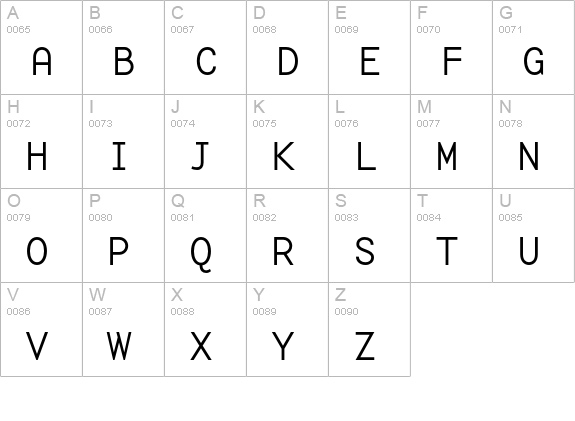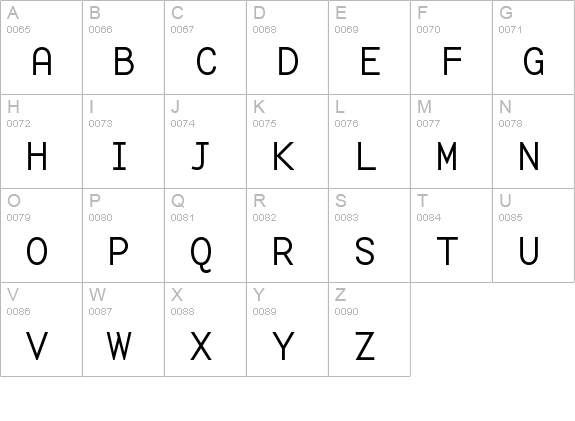
BaseMonoWideThin Font Details
BaseMonoWideThin font is a sleek and modern typeface that exudes a sense of elegance and sophistication. Its thin, wide characters create a unique and stylish appearance that is perfect for a wide range of design projects. This font is ideal for creating clean and minimalist designs, making it a versatile choice for both digital and print applications. What sets BaseMonoWideThin font apart is its clarity and readability, making it suitable for use in various sizes without compromising legibility. Whether you're designing a website, a poster, or a logo, this font will bring a touch of refinement to your work. Best of all, BaseMonoWideThin font is completely free to download at FontsMarket.com, making it accessible to everyone looking to elevate their design projects with a touch of sophistication. Don't miss out on the opportunity to add this stunning typeface to your font collection today!